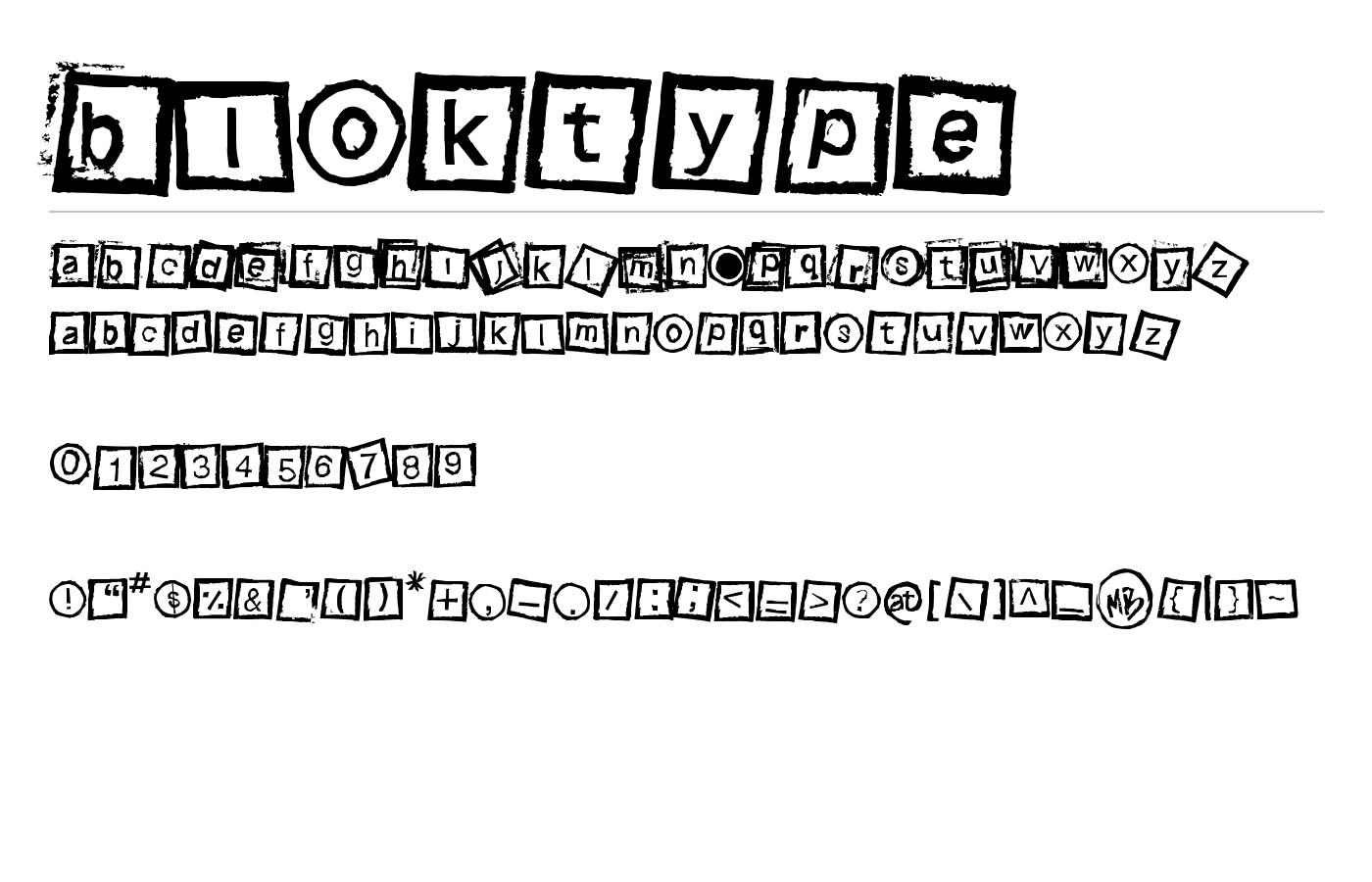
Bloktype is a bold, playful display font with a hand-drawn, grungy aesthetic that features irregular, blocky letterforms enclosed in rough, uneven boxes. Its quirky and informal style conveys a creative, DIY vibe, making it perfect for eye-catching headlines, posters, and designs that aim to stand out with a unique, artistic flair. This font works best in contexts where a fun, expressive look is desired rather than formal or body text usage.
Bloktype Font